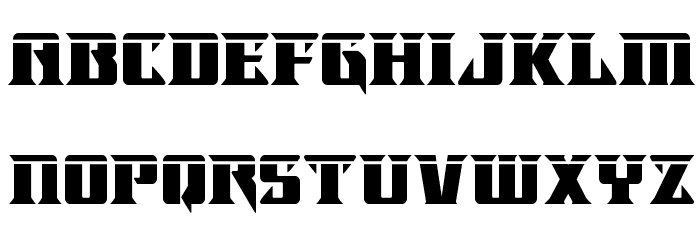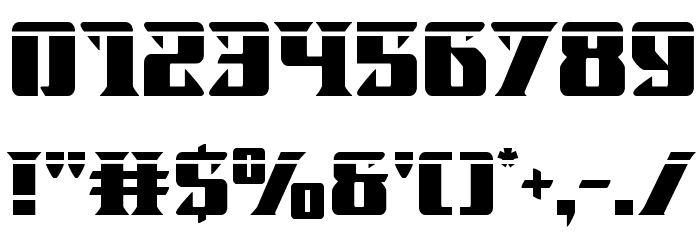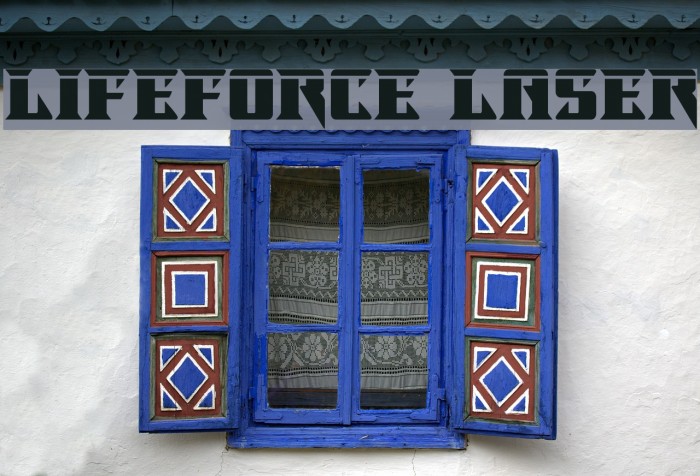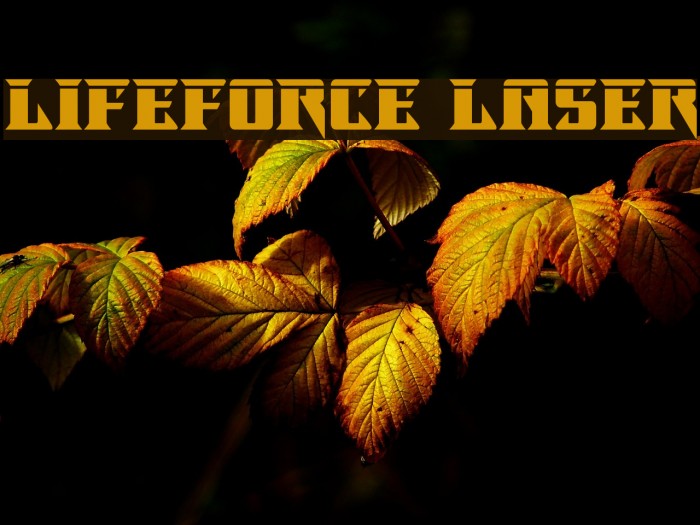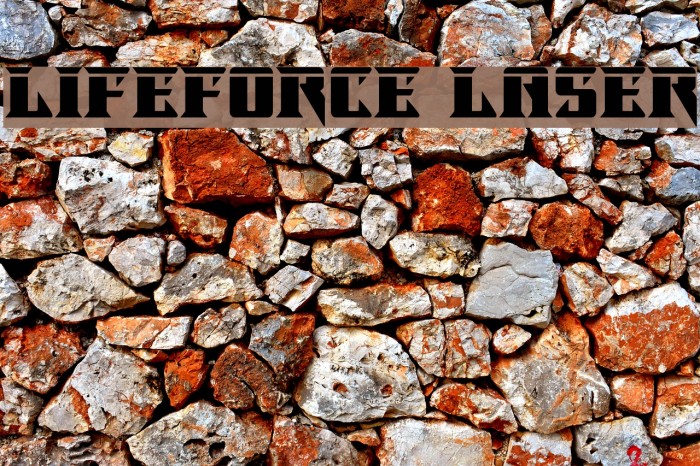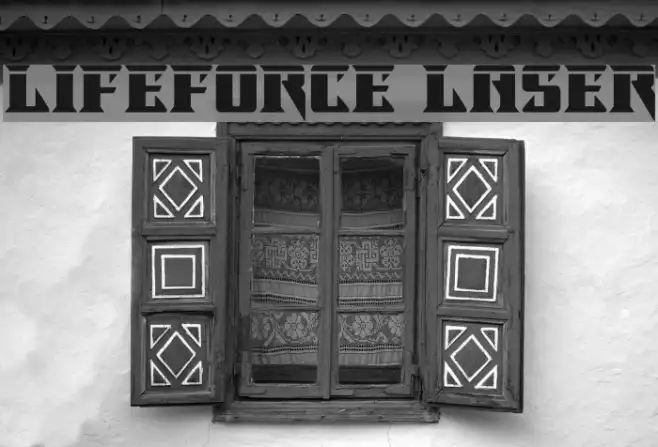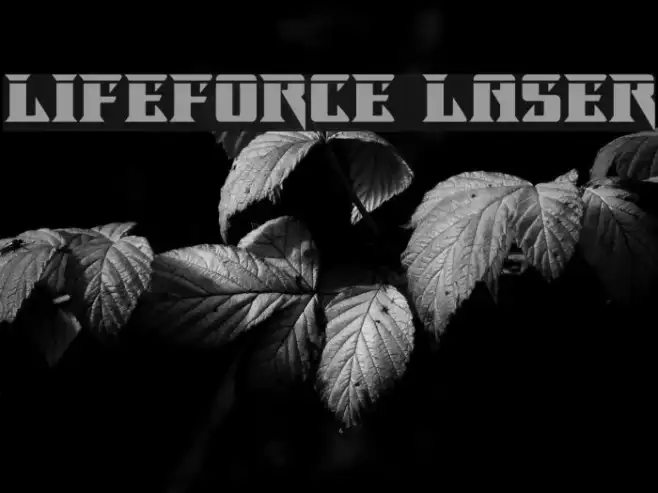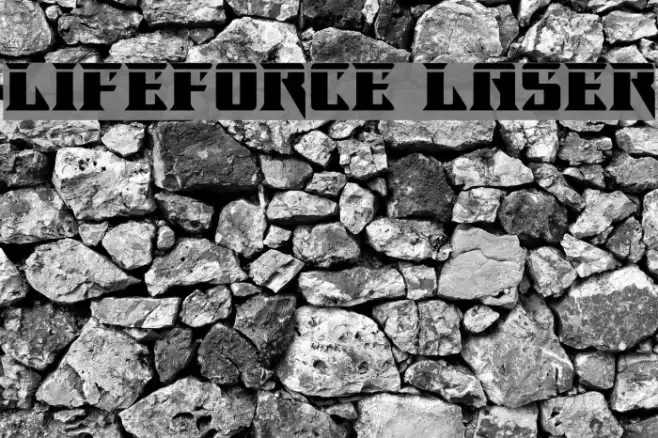
Lifeforce Laser Font
This font features a bold and striking design with sharp, angular edges and a futuristic aesthetic. The characters are heavily stylized, with a consistent use of geometric shapes and cut-out sections that create a dynamic and aggressive look. The uppercase and lowercase letters maintain a uniform height, contributing to a cohesive appearance. Numbers and special characters follow the same design principles, ensuring visual consistency across all elements. The font's unique style makes it ideal for projects that require a strong visual impact.
A bold, angular font with a futuristic and aggressive design.
- Proposed Projects: Ideal for sci-fi themed posters, video game titles, branding for tech companies, and any project needing a bold, futuristic look.
- Overall Style: Futuristic